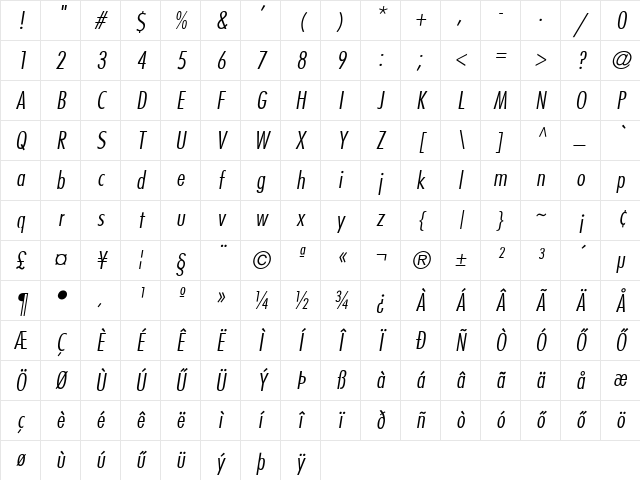
H_FujiyamaLight Italic
Design Context for H_FujiyamaLight
H_FujiyamaLight is a composed and adaptable typeface that performs quietly and consistently across a wide range of design contexts. The slanted form adds forward momentum and visual energy. Its slender proportions lend an understated elegance to any composition.
Pro Tip: Use H_FujiyamaLight for emphasis, pull quotes, and subheadings where its slanted energy can add rhythm to the layout.